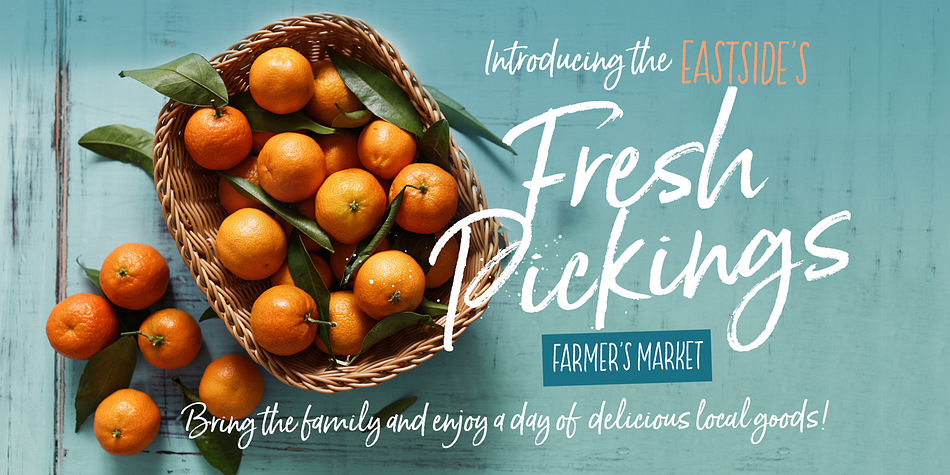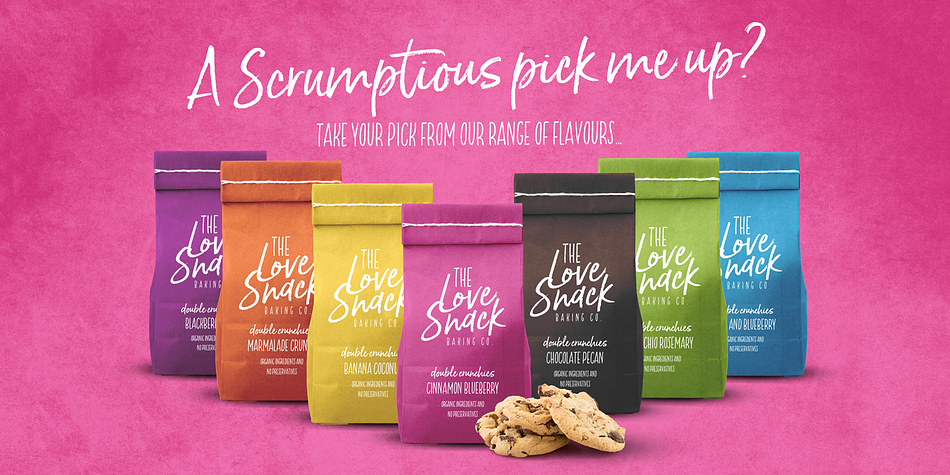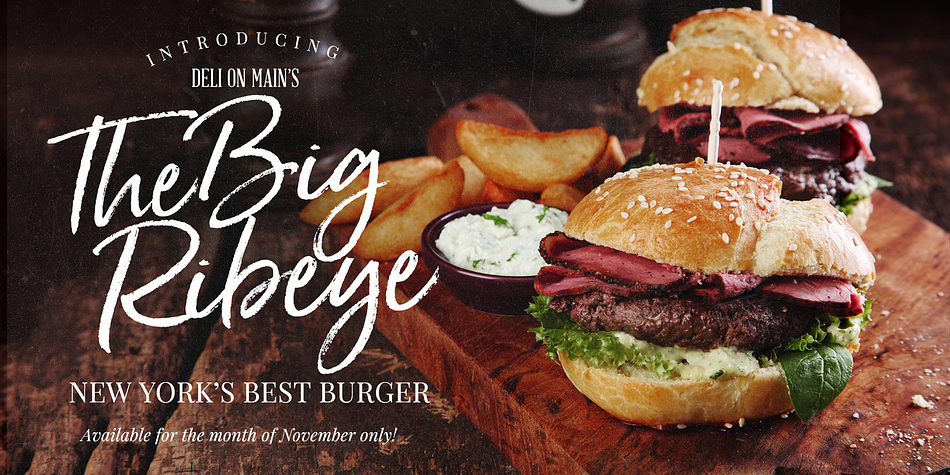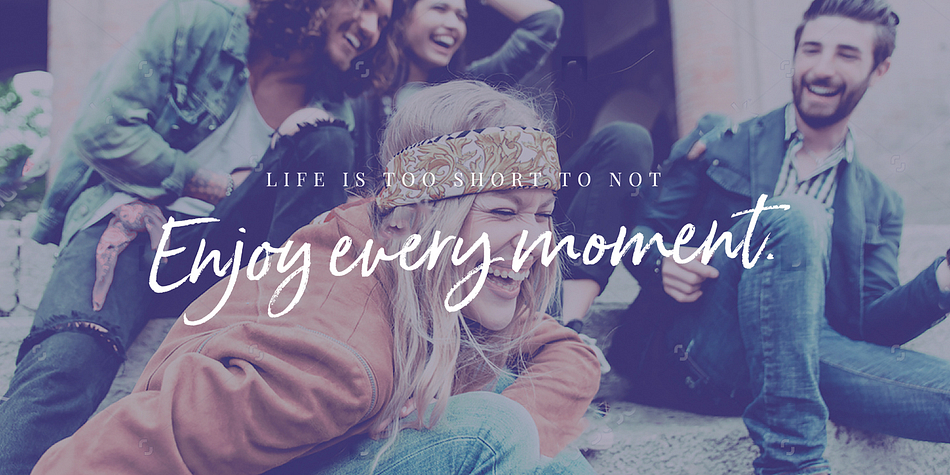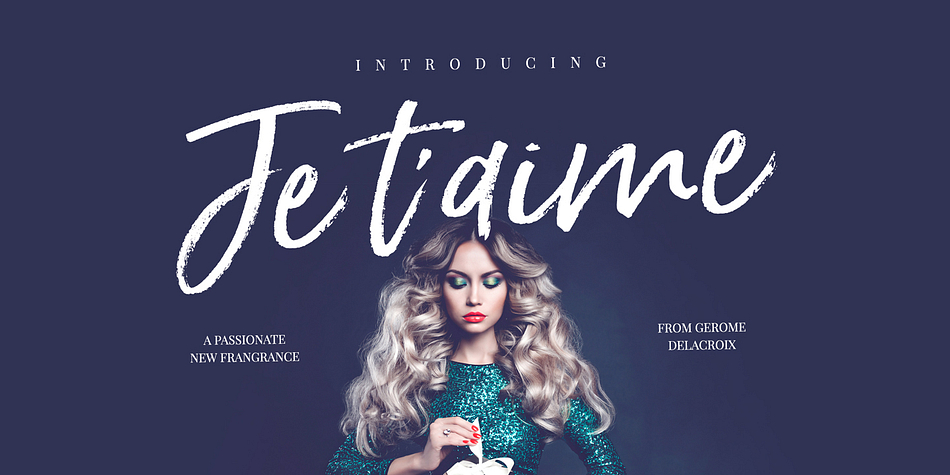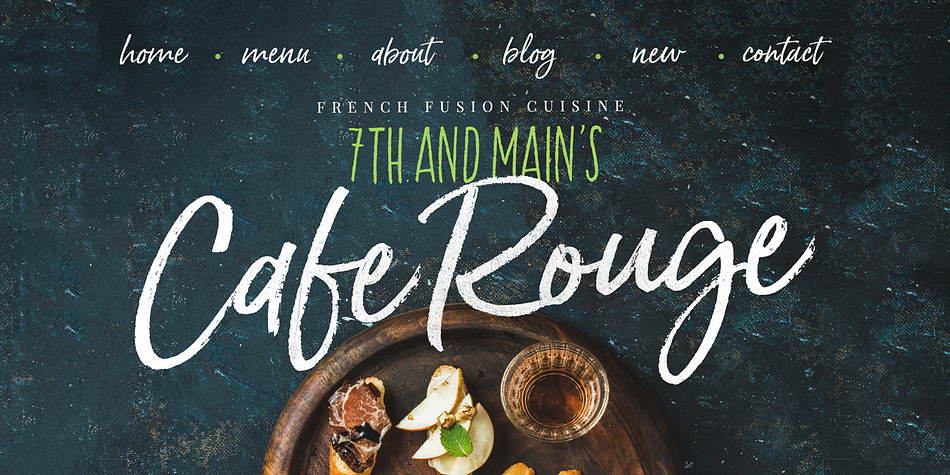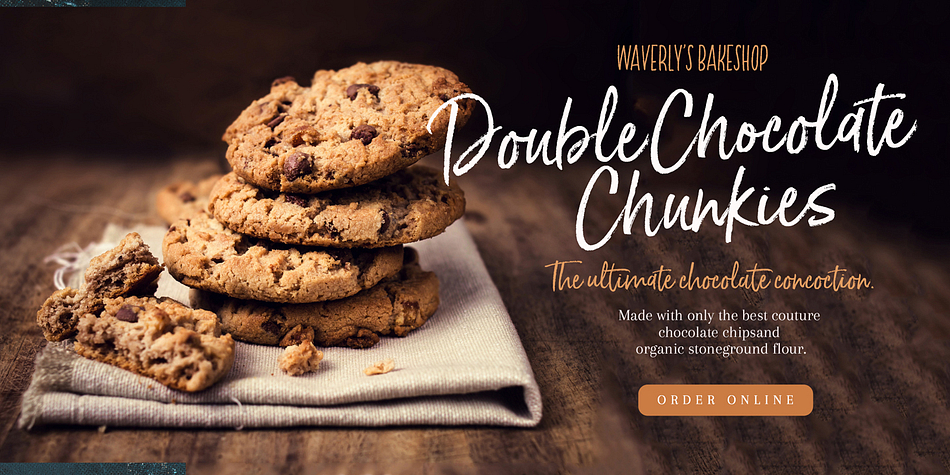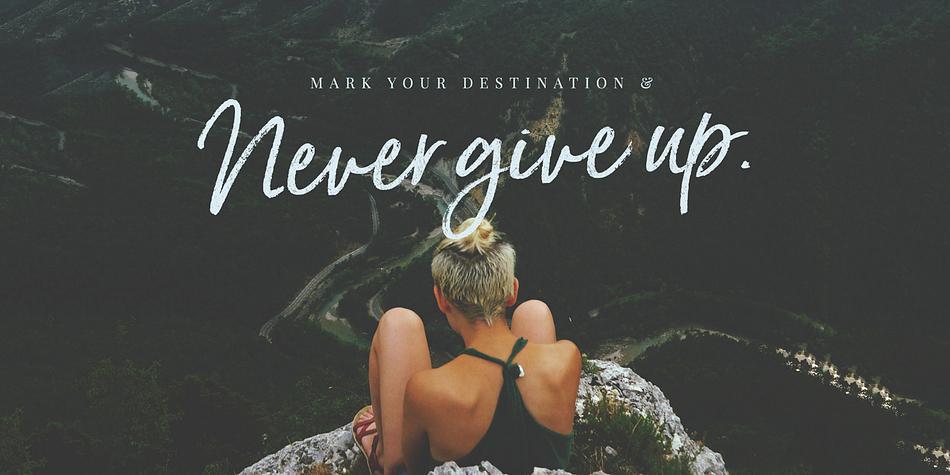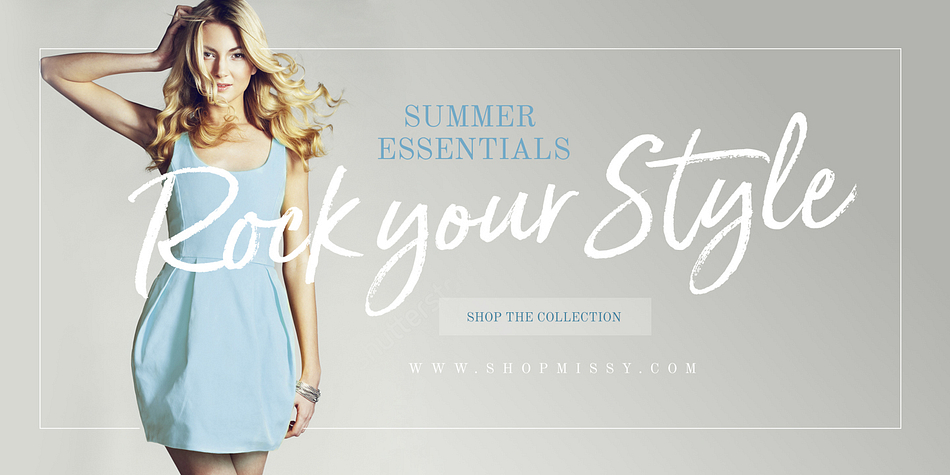
Designed by Nicky Laatz, Born Ready is a script and modern calligraphy font family. This typeface has three styles and was published by Nicky Laatz.
Get ready to make a statement with “Born Ready” - A dry marker handwritten font with textured lines and a multiple personalities.
Born Ready comes is various styles - Regular, Slanted , and Upright - each with it’s own unique personality to suit the look you need.
A handy set of alternate lowercase letters, and ligatures allow you to you get the perfect look you need for your design.